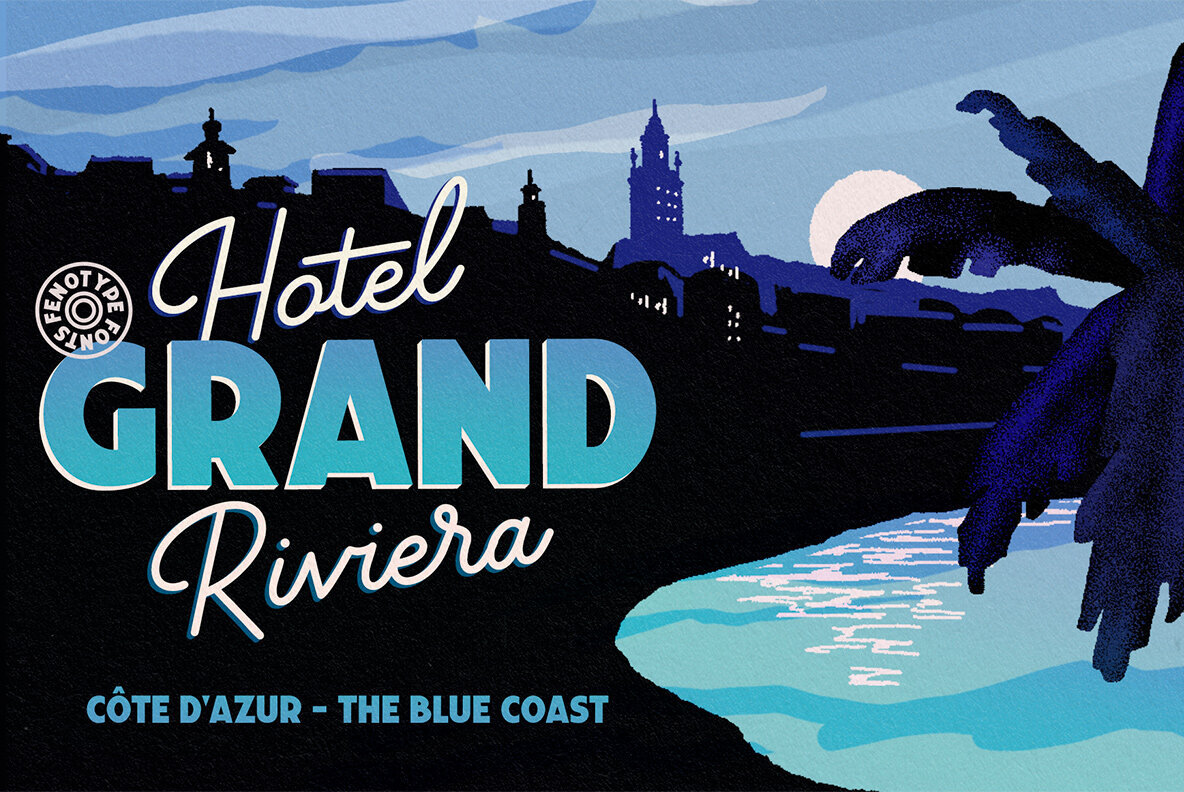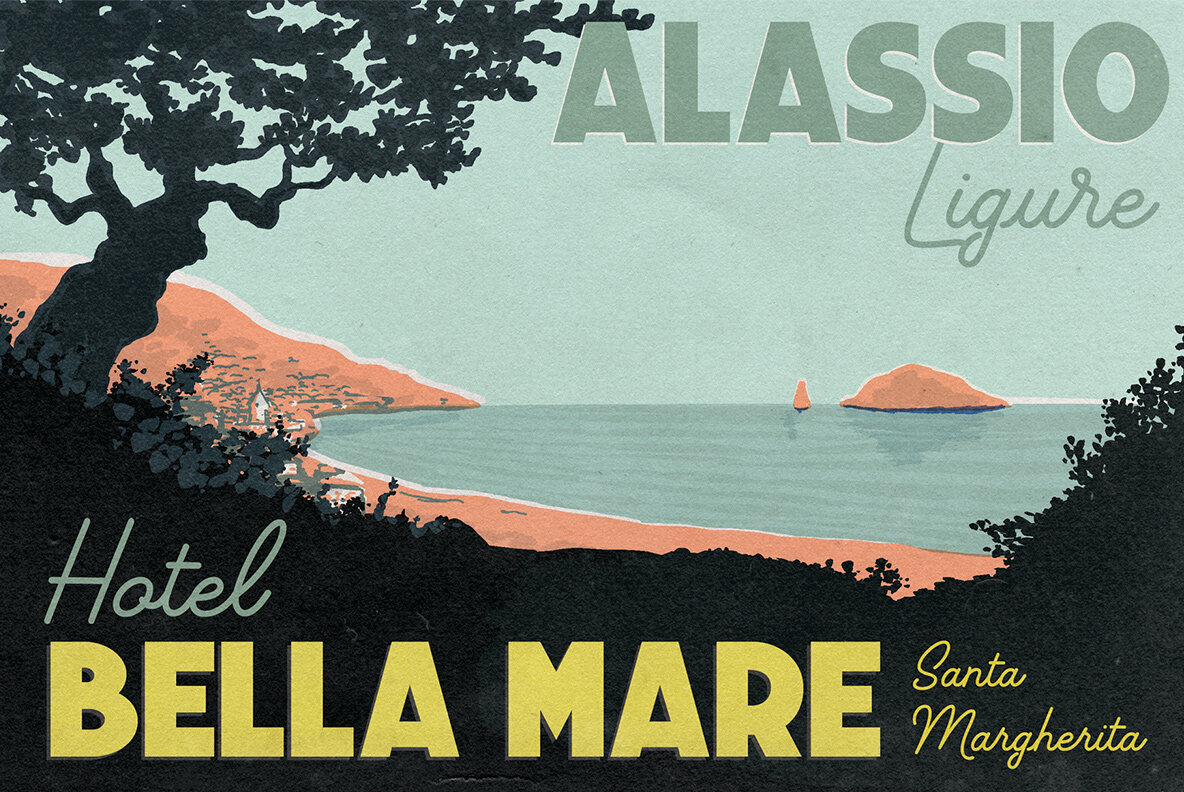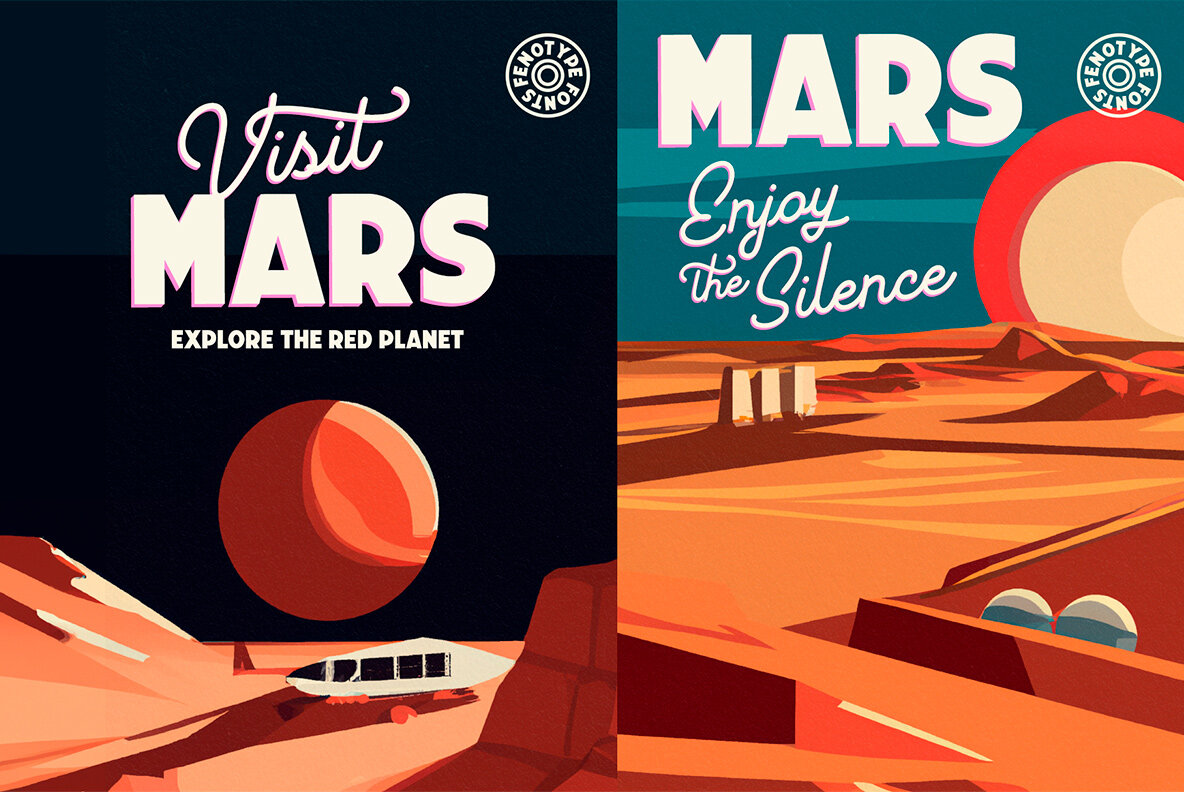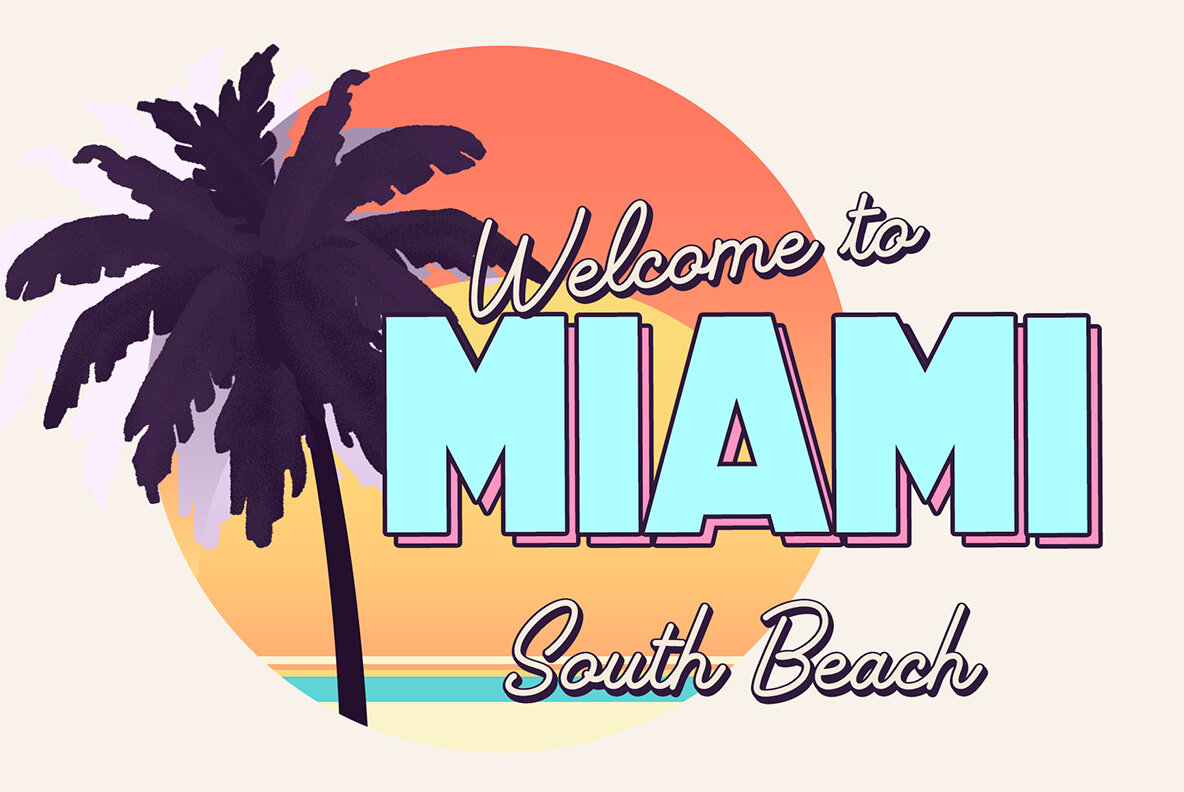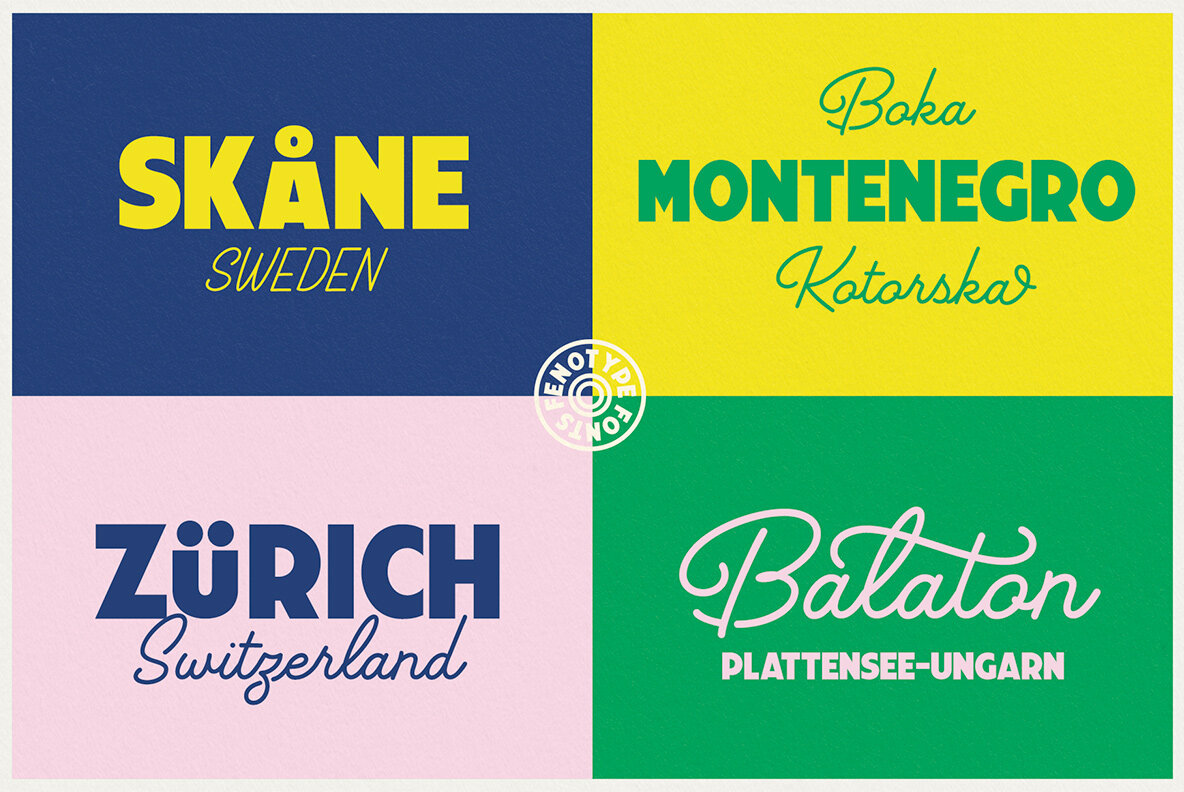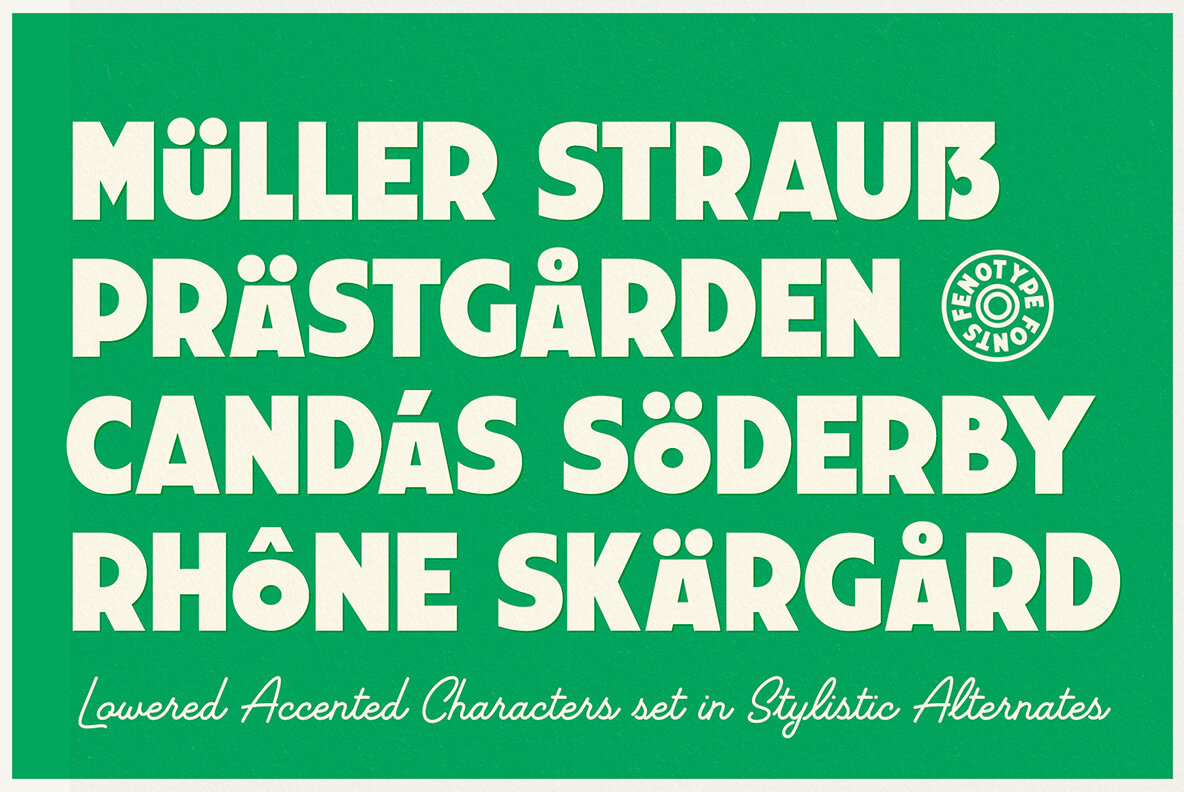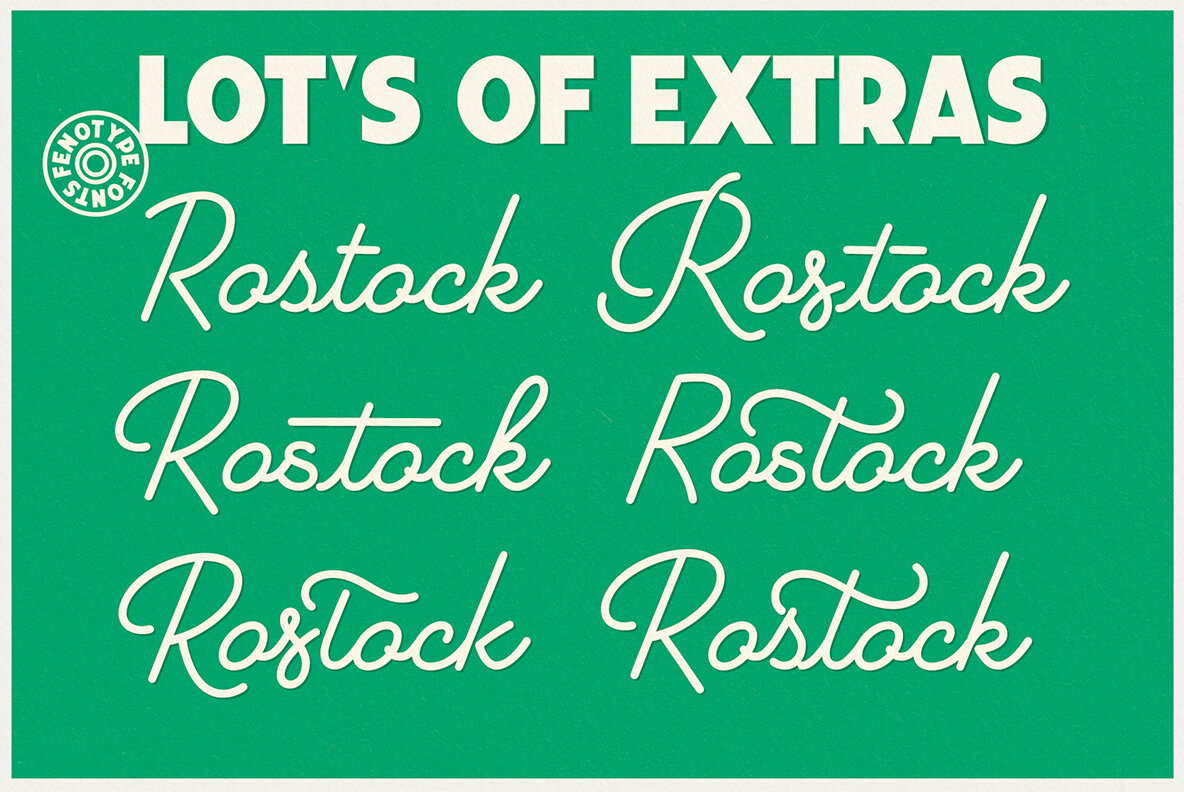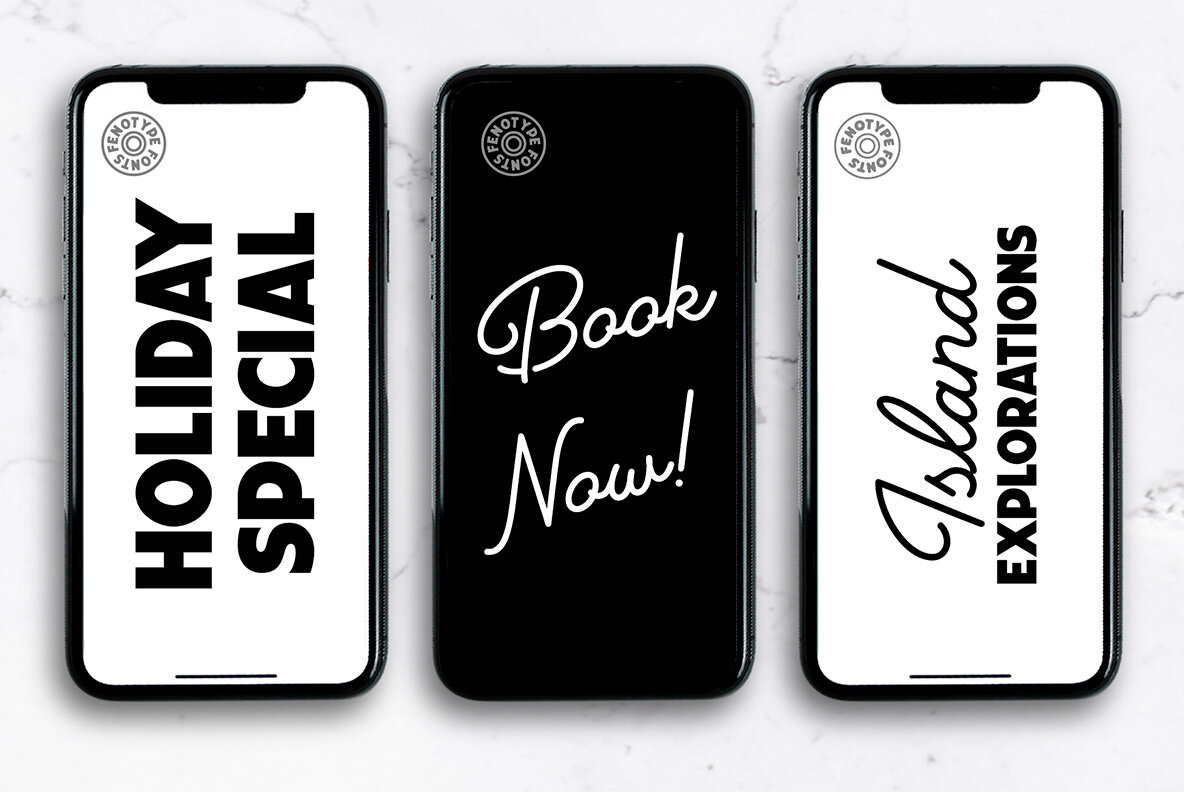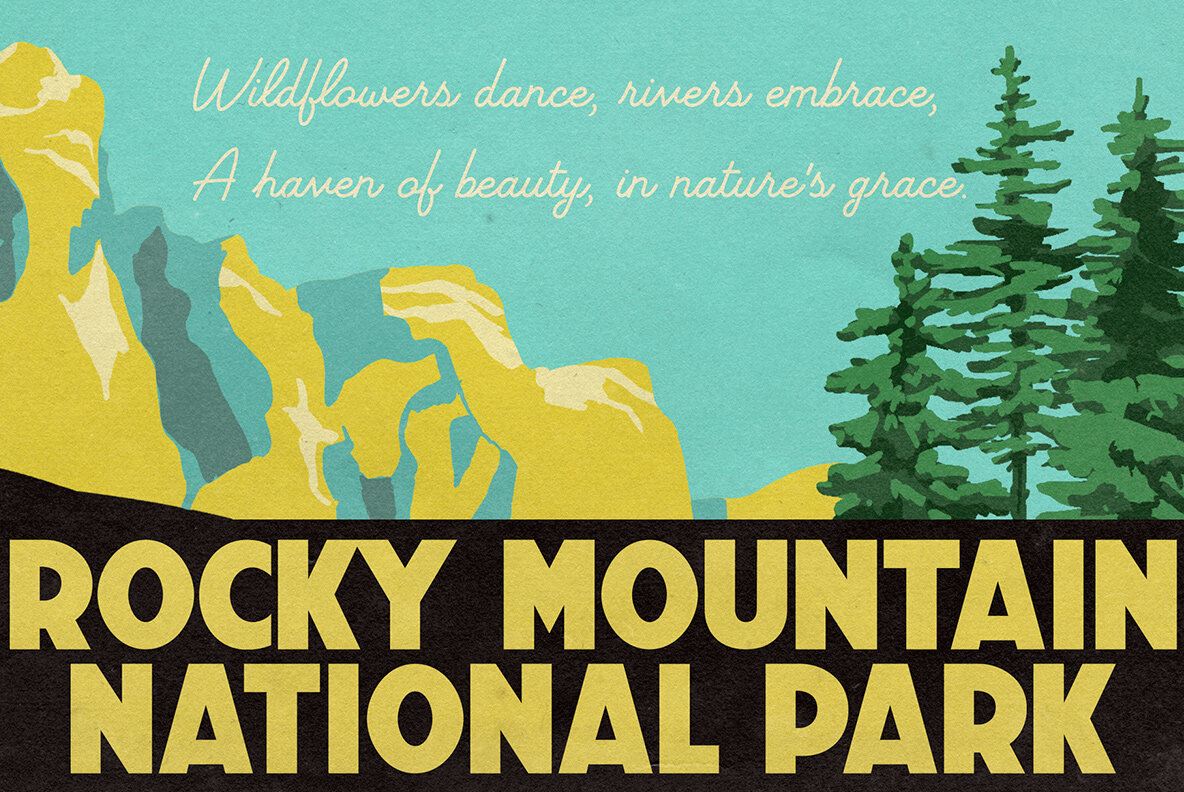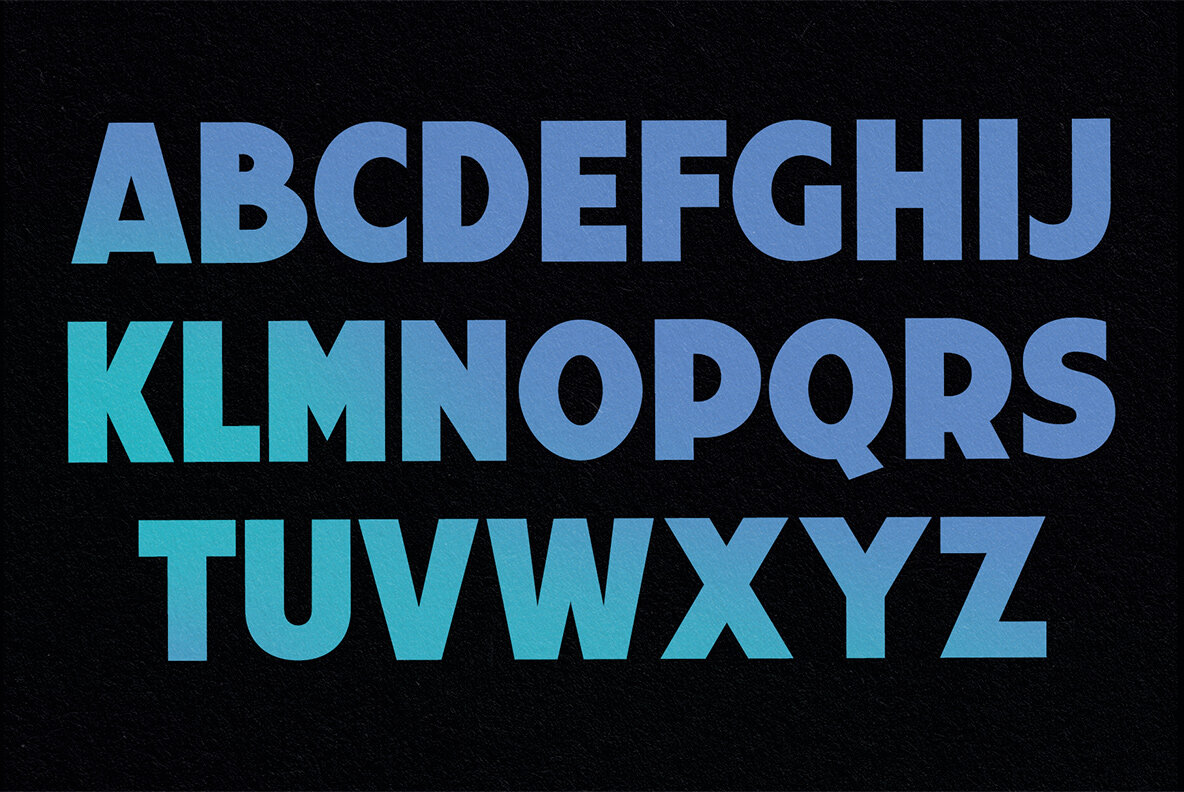
Travel Poster Font
Travel Poster Script Regular
Travel Poster Sans Regular
Inspired and named after last century’s travel posters, Travel Poster is a font duo with a monoline Script with small x-height and a bulky vernacular Sans designed to play together.
Script is equipped with several OpenType features such as Swash and Titling alternates as well as Small Caps for small capital letters. Keep Contextual Alternates on for smooth letter connections.
Sans comes with Stylistic Alternates that provides you with a selection of lowered accented characters that can be used to create more uniform text blocks and tighter leading.
Travel Poster is a great pair for all kinds of display use from posters to packaging and from brand identity to book covers. Both styles also work perfectly on their own and due to their certain simplicity in features they can easily be paired with other fonts as well.